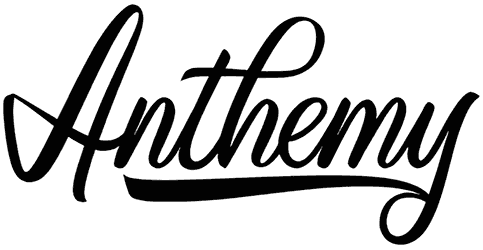
Anthemy Script Font
Your digital artwork can benefit from having a more contemporary appearance if you use the Anthemy Script calligraphy font. This script font works wonderfully for making clothing lines, posters, and business cards all at the same time. This natural font has some very appealing cursive styles that you can choose from. Sure, go ahead and take on that challenge if you’re up for it.